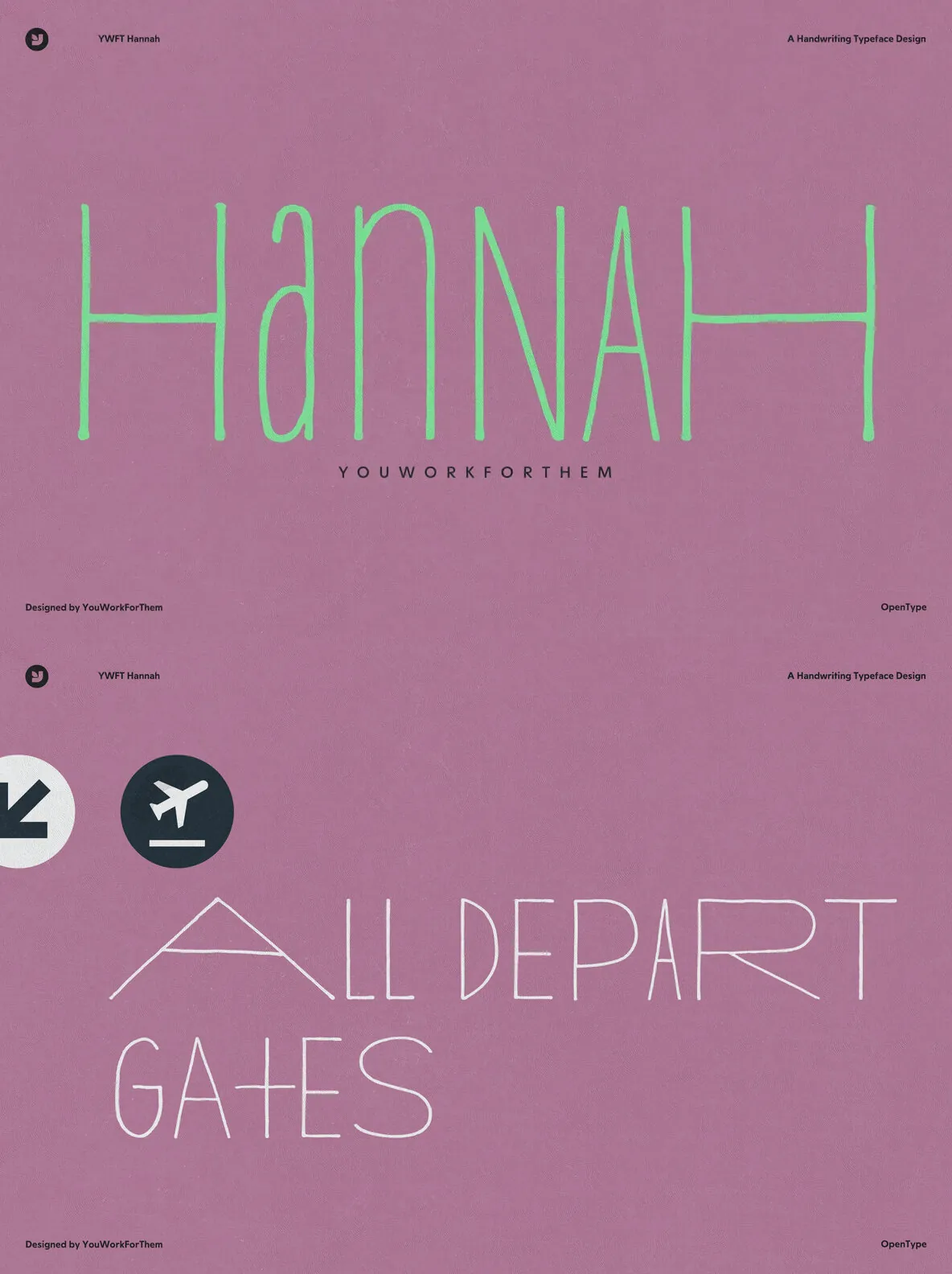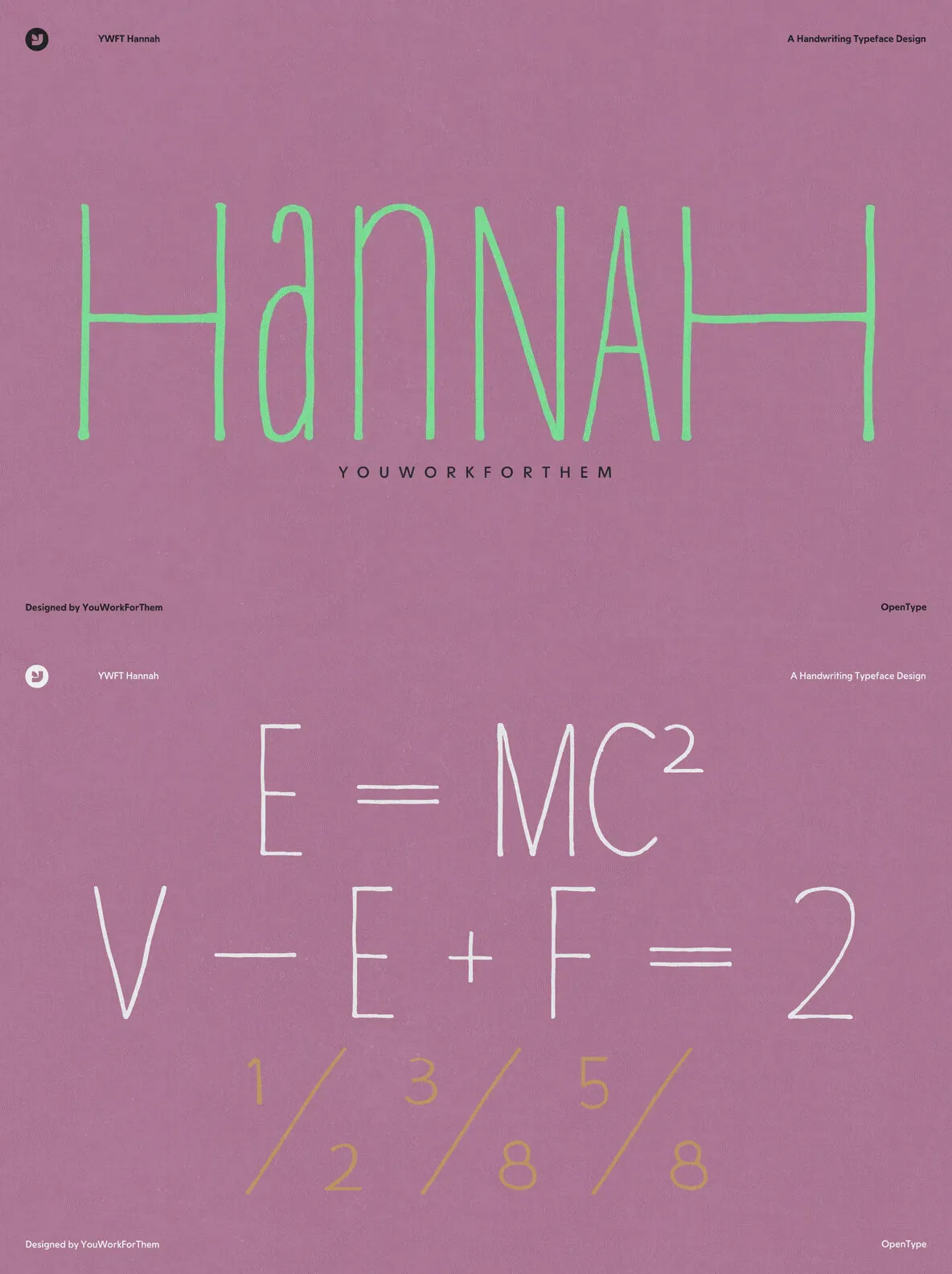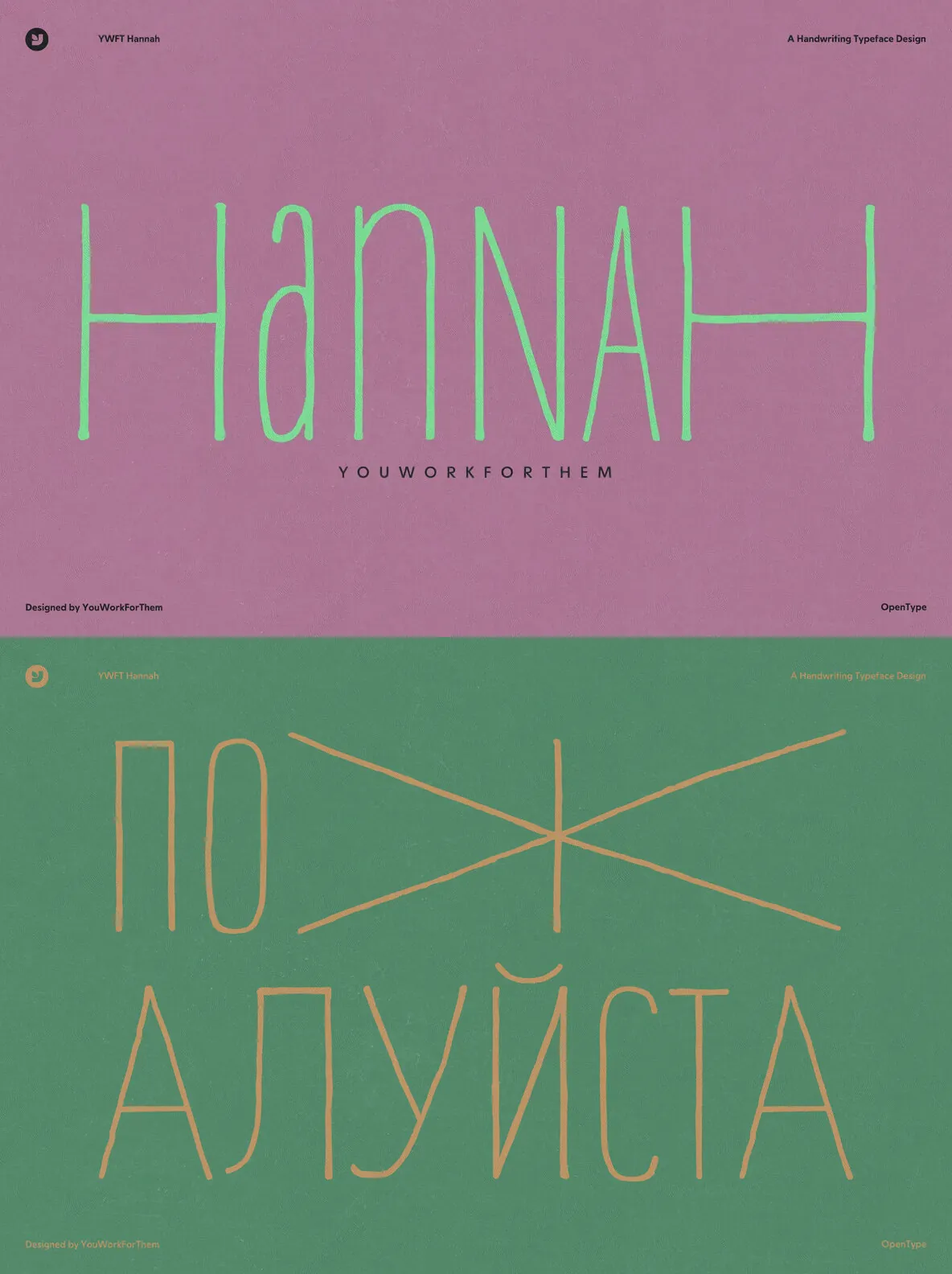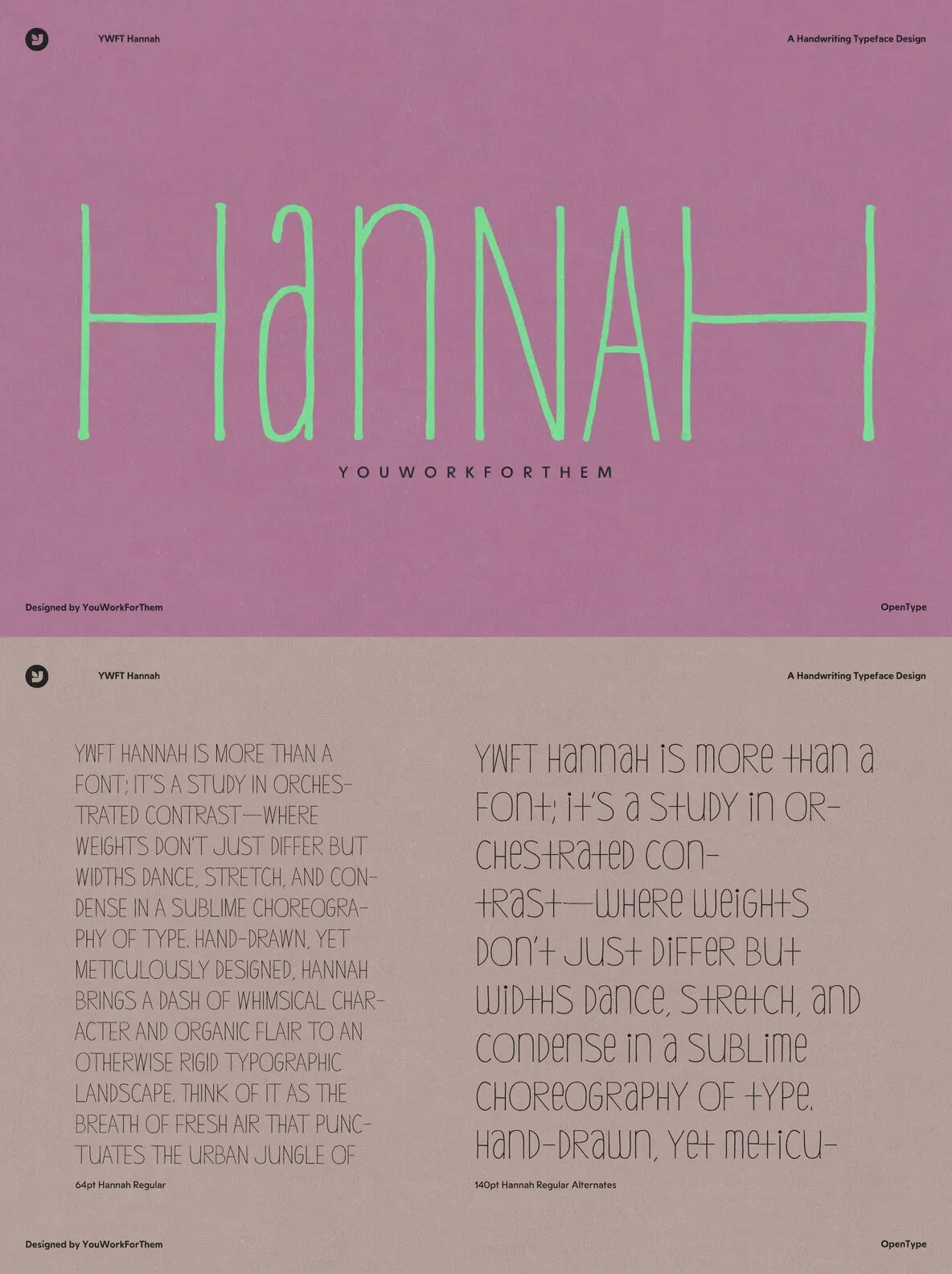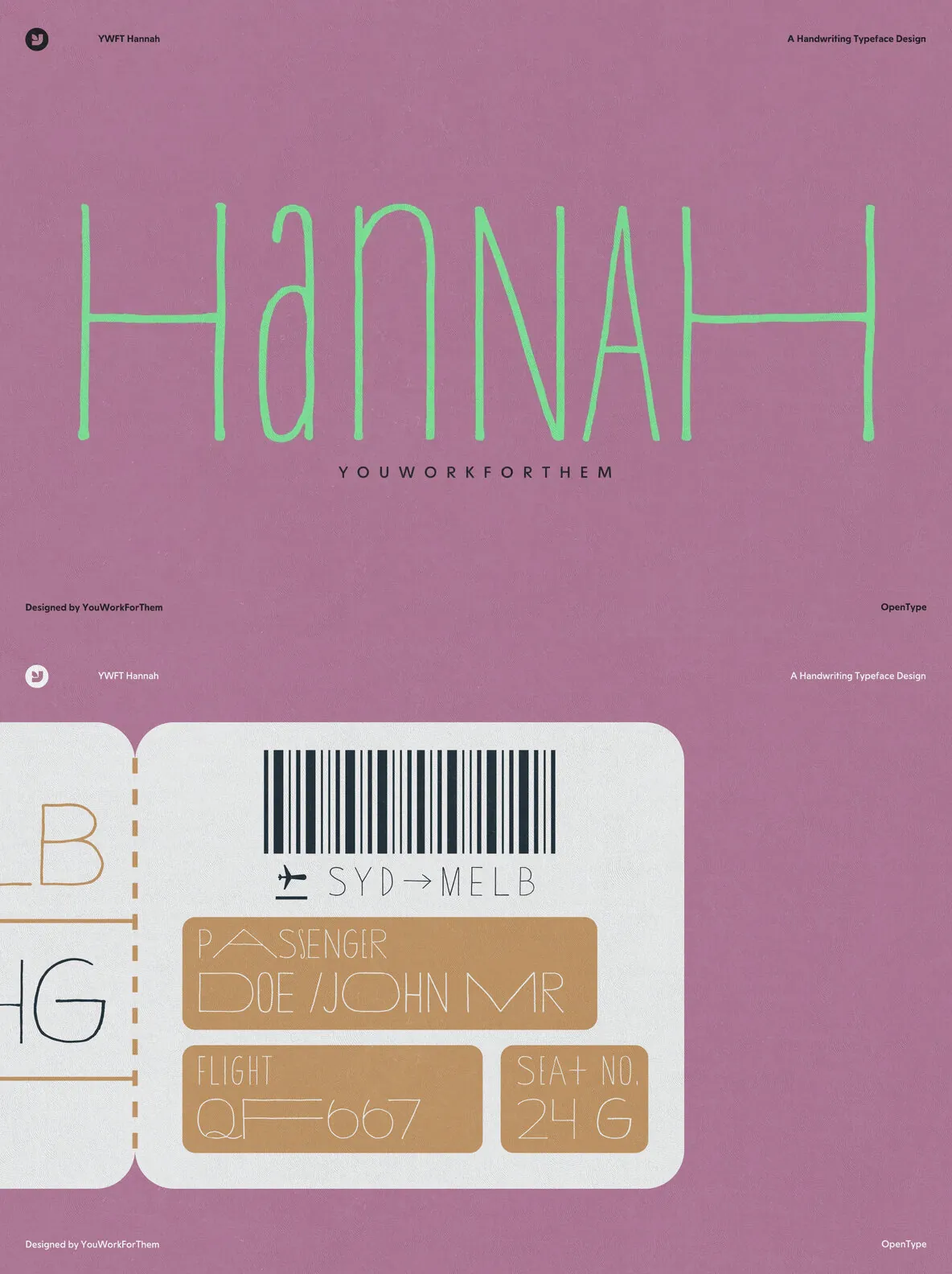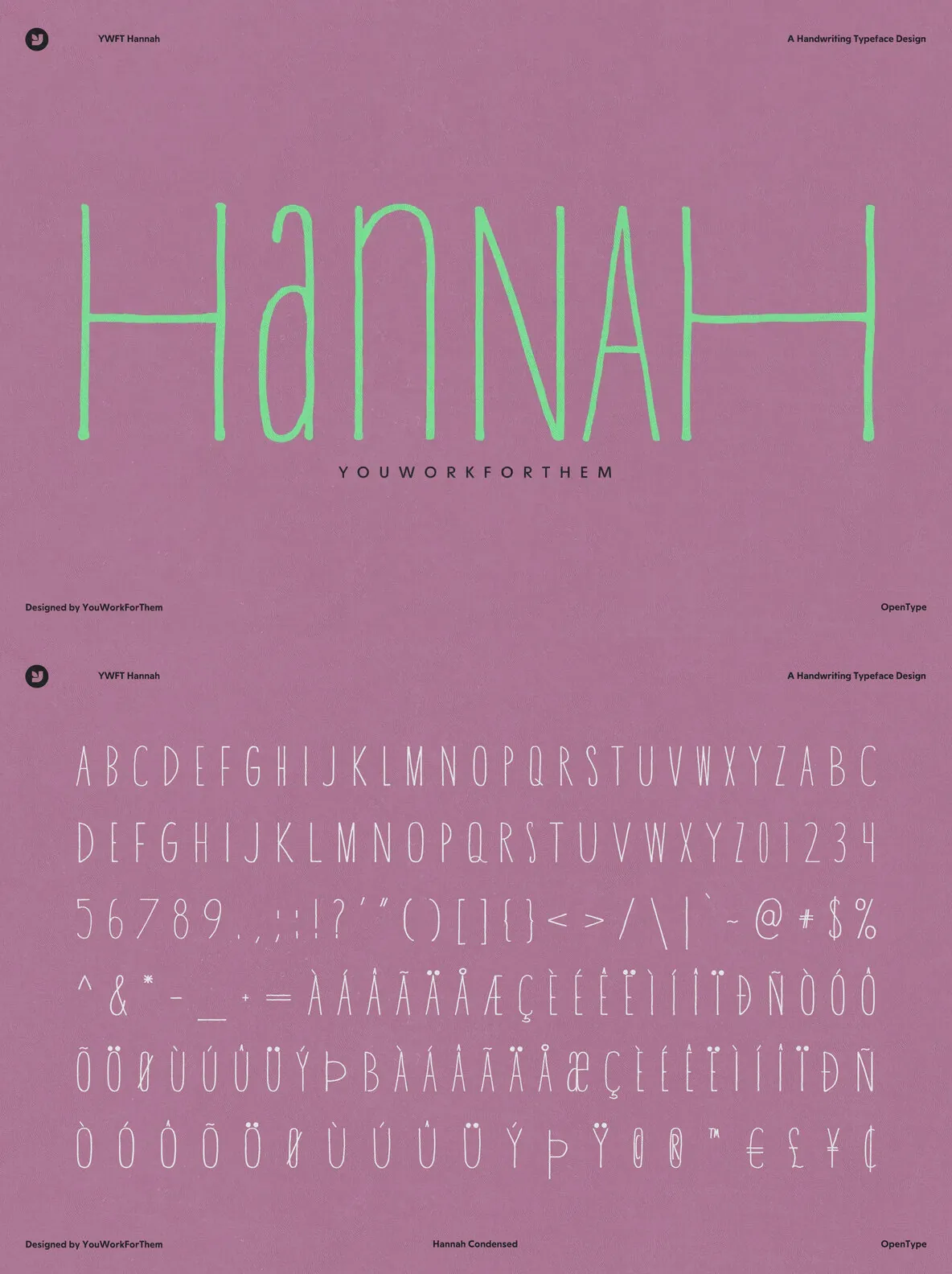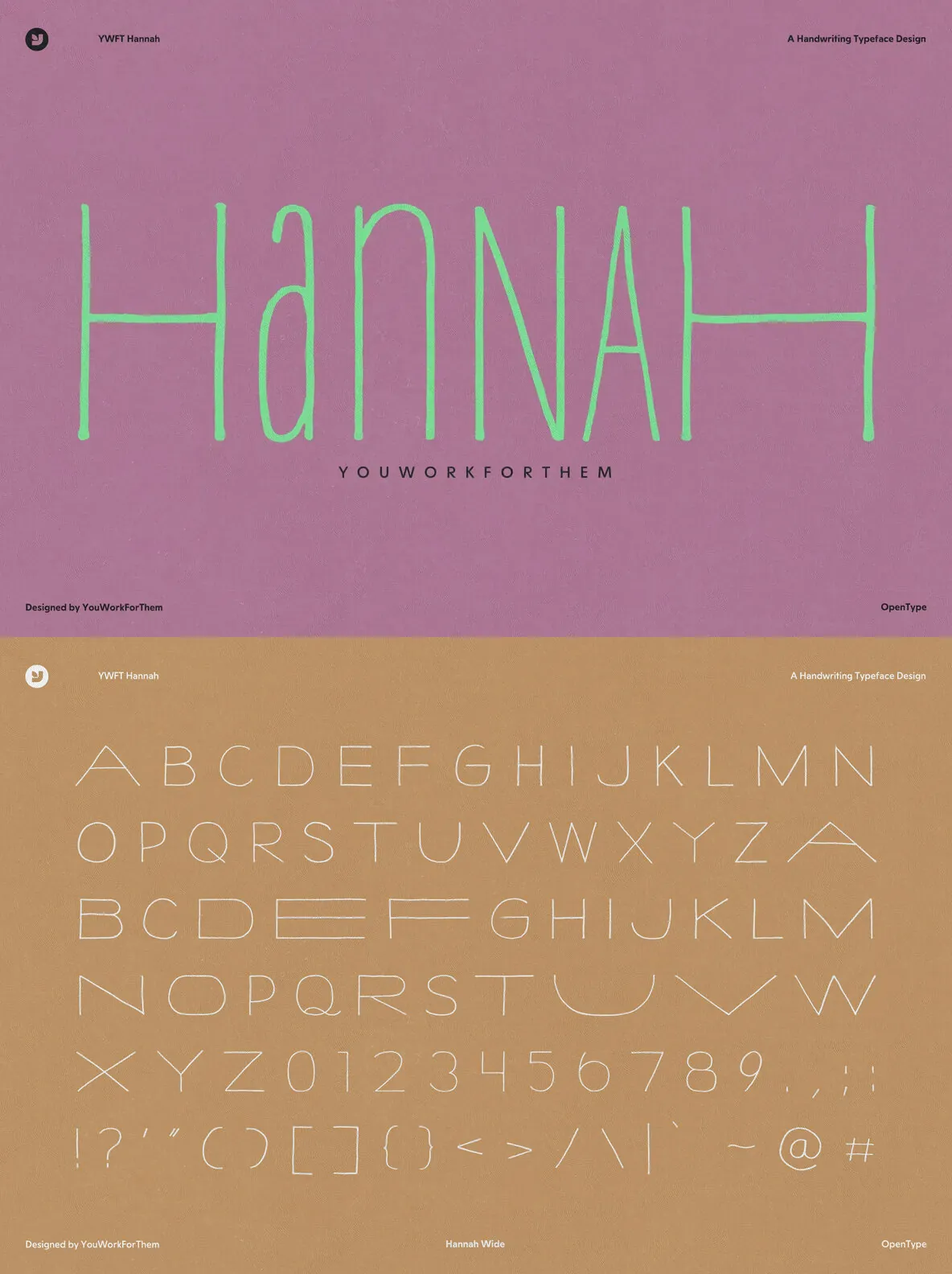
Unleash Your Creative Genius with YWFT Hannah
Seamlessly converging three distinct versions into a unified entity, this typeface goes beyond typical weight variations, and dares to experiment with widths. This innovative approach breeds an unrivaled cohesion that serves as the backbone of YWFT Hannah, making it a profound fit for graphic designers aiming for diversity and distinction in their typography choices.
Weaving into its fabric a loose, hand-drawn quality, YWFT Hannah infuses an added layer of personality, enabling each character to tell a story, and each word to paint a vivid picture. This supports marketing firms to create compelling narratives, shaping authentic connections between brands and their audiences. YWFT Hannah is more than a typeface; it is an incredibly flexible tool that brings creative visions to life, transcending the barriers of conventional typography.
Key Features:
Comprises of three interweaving versions providing variation in widths, not just weights
Features a loose, hand-drawn quality, adding a layer of warmth and personality
Ideal for graphic designers seeking to diversify their typography palette
Perfect for marketing campaigns aiming for engaging, authentic narratives